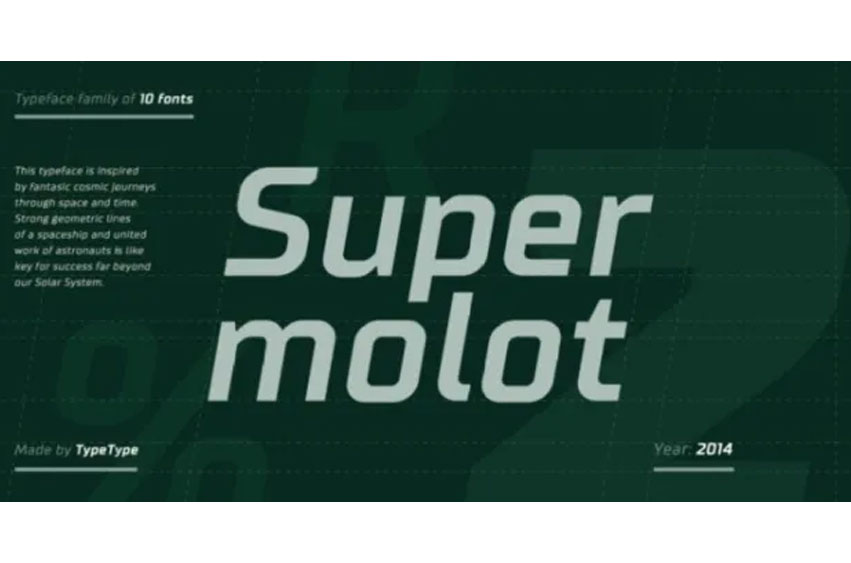
TT Supermolot Font
TT Supermolot Font Family. Infographics — big chapter in graphic design. TT Supermolot – this fontfamily for infographics and any structured information. You can use these fonts almost everywhere.
The modern open grotesque forms and classic fontfamily formula: Thin, Light, Regular, Bold, Black and Italics. TT Supermolot is the assistant to work for any projects.